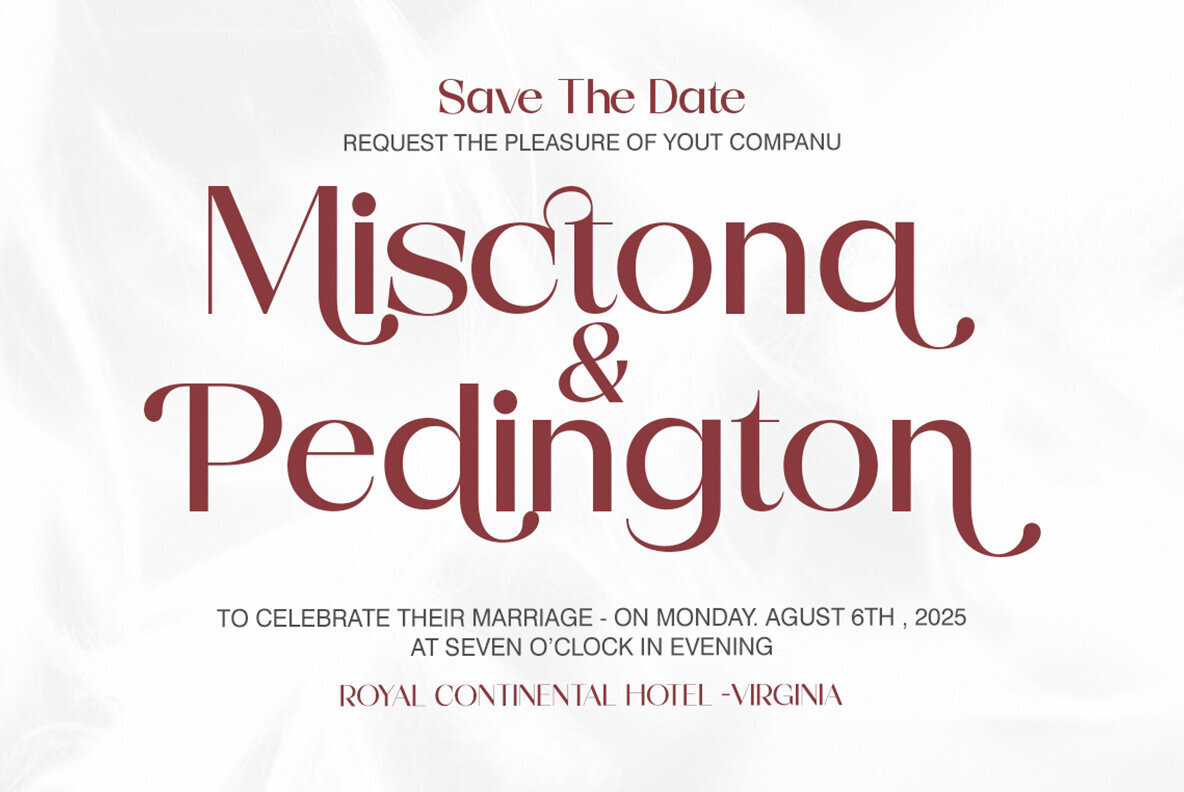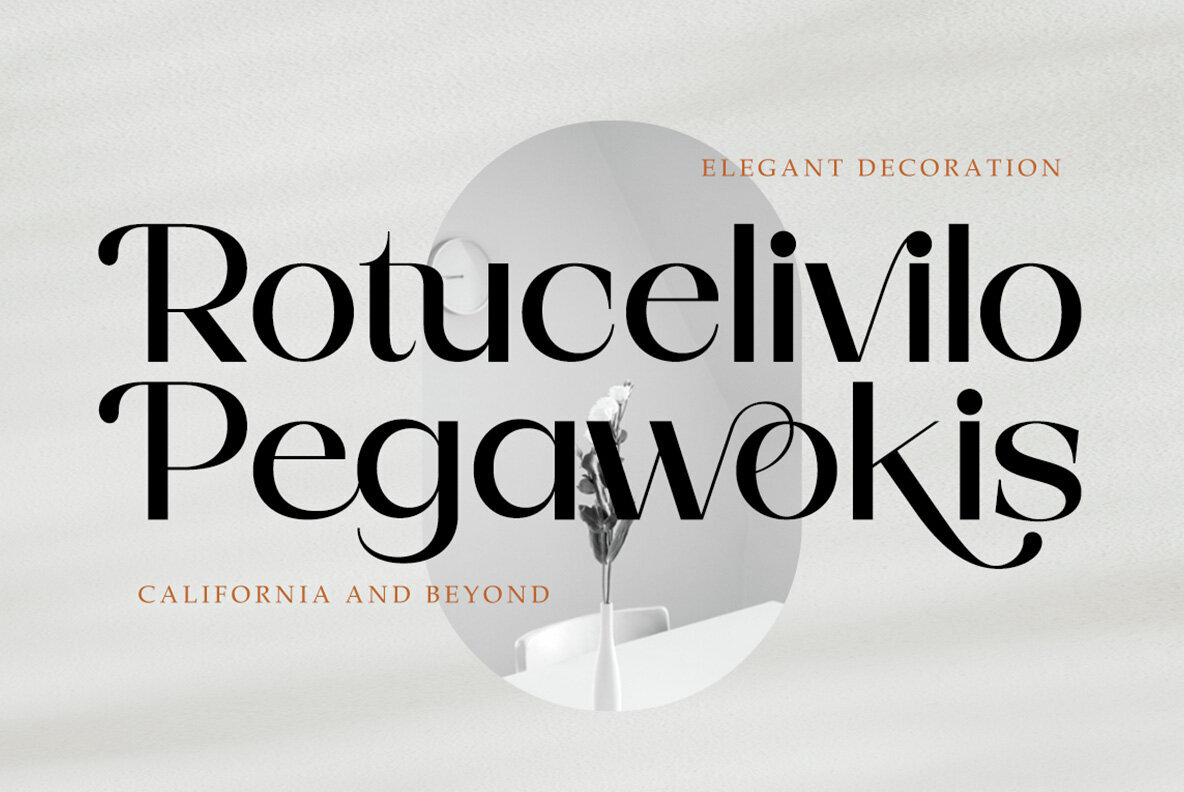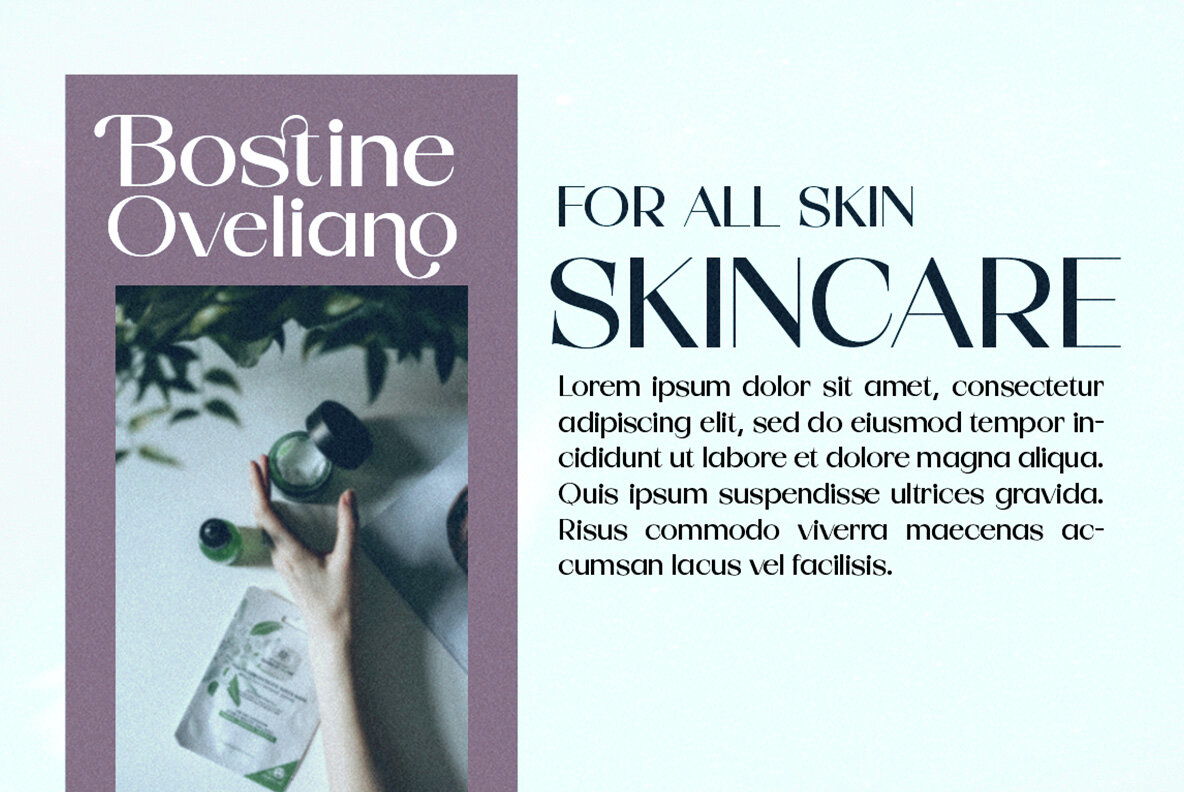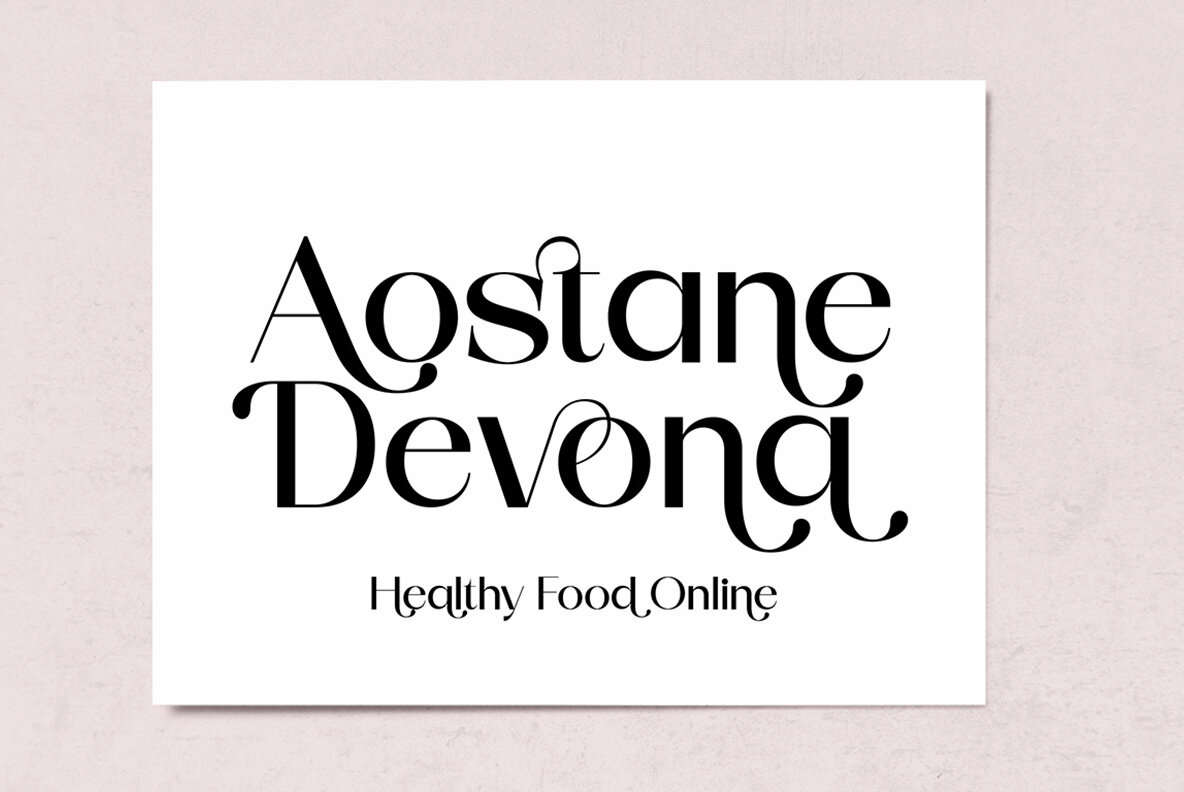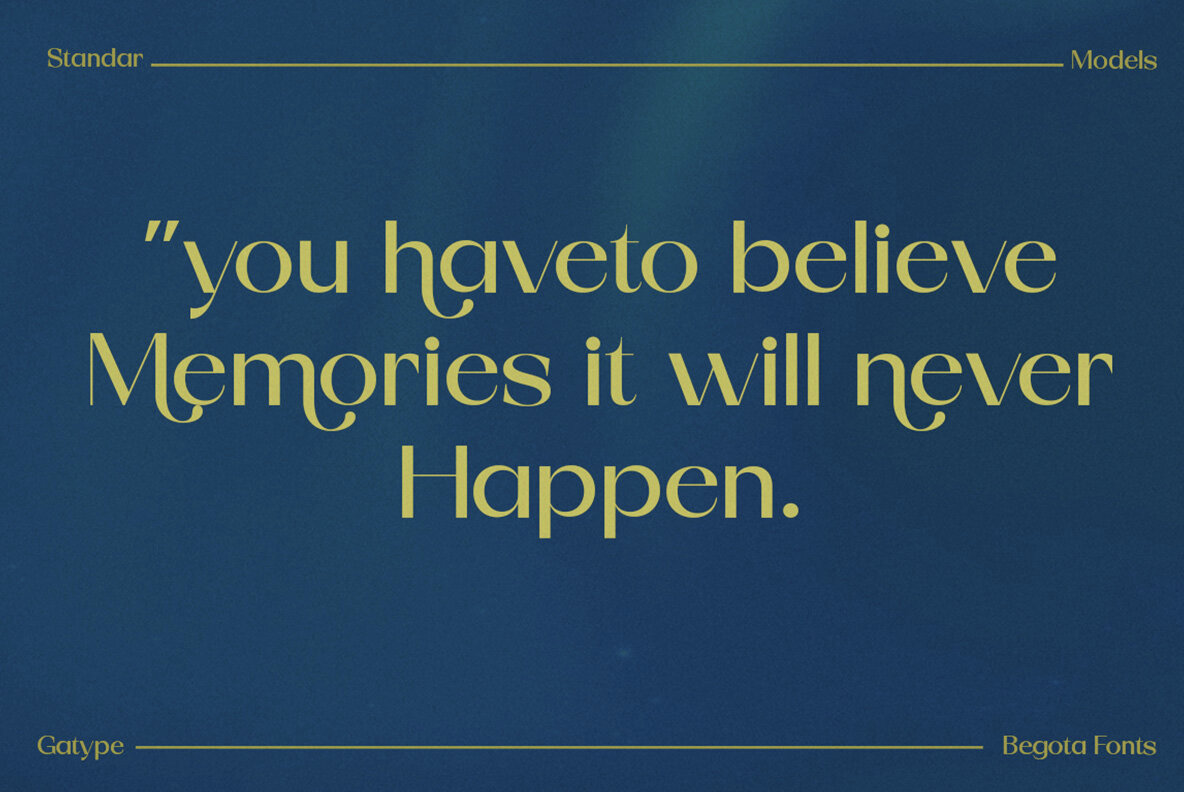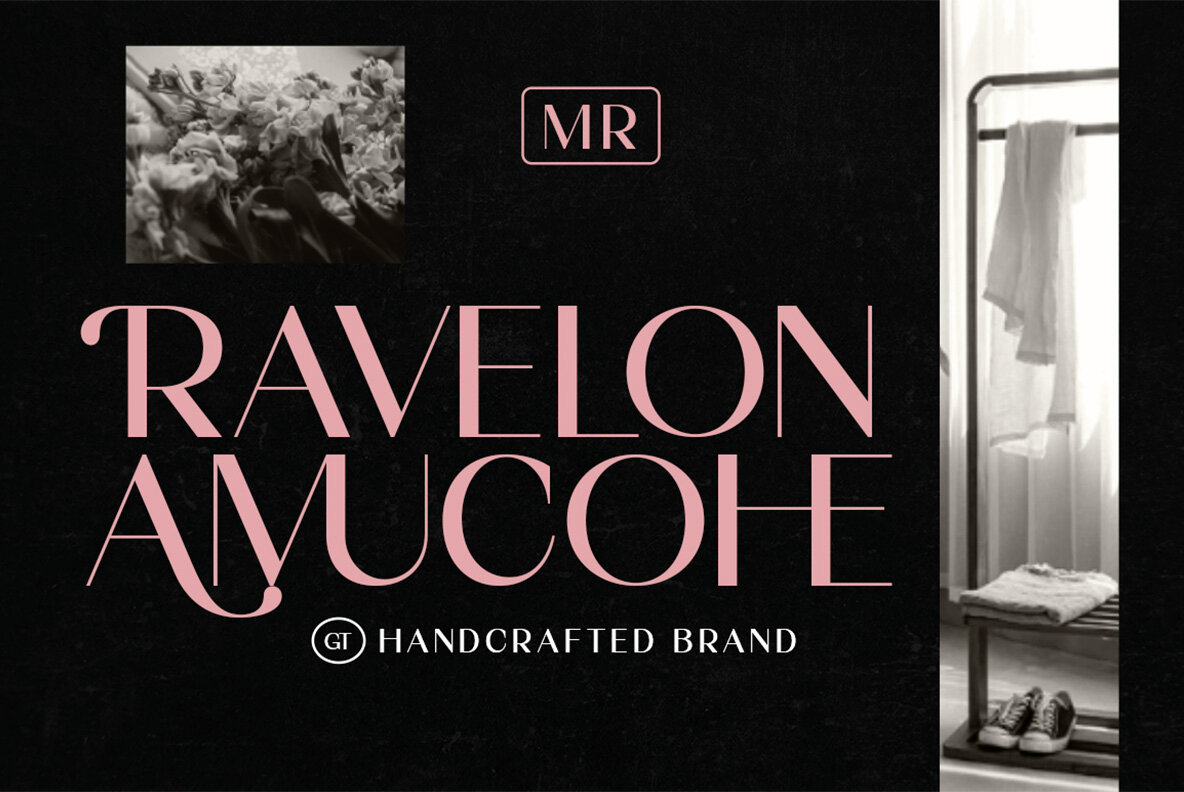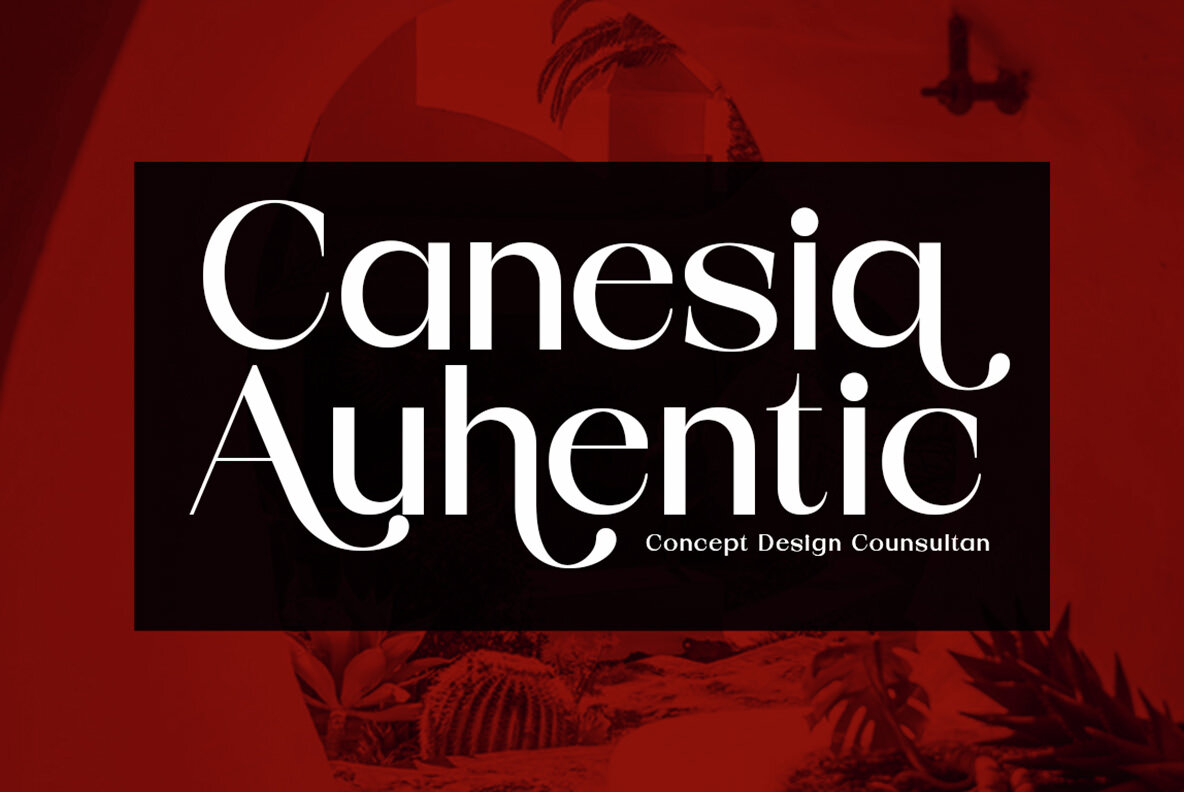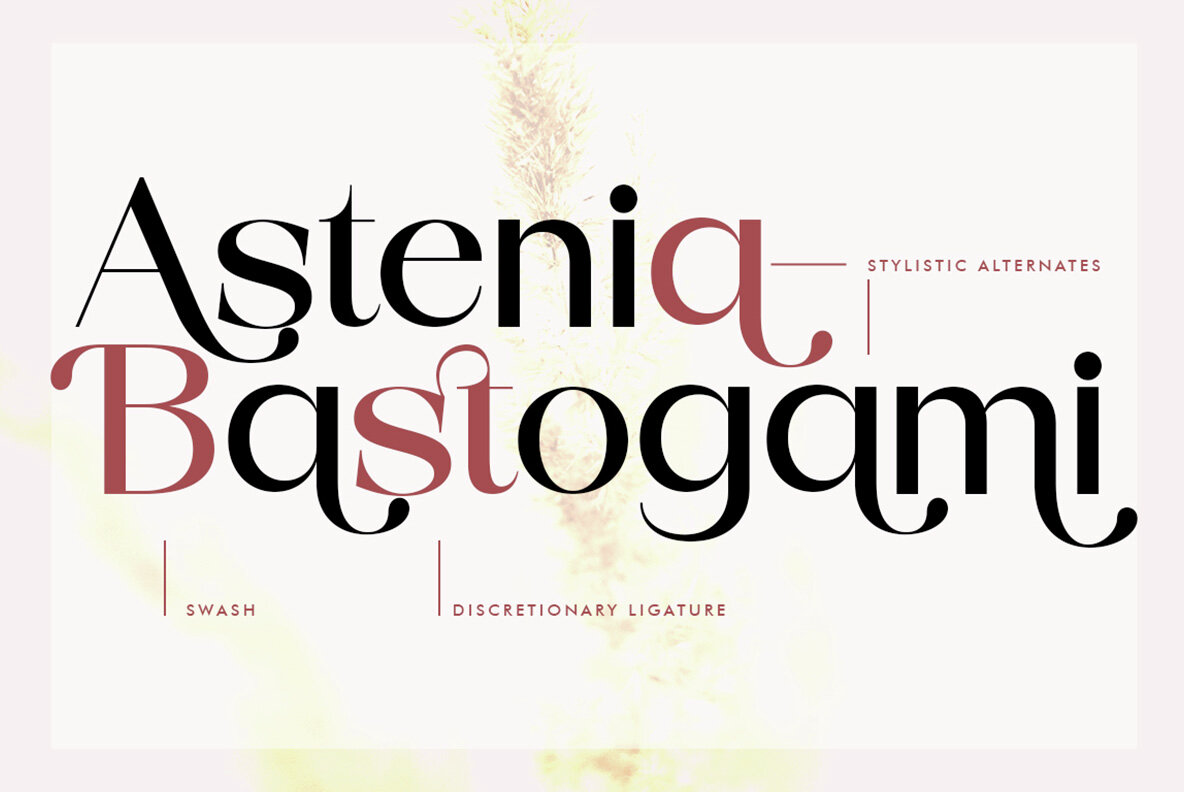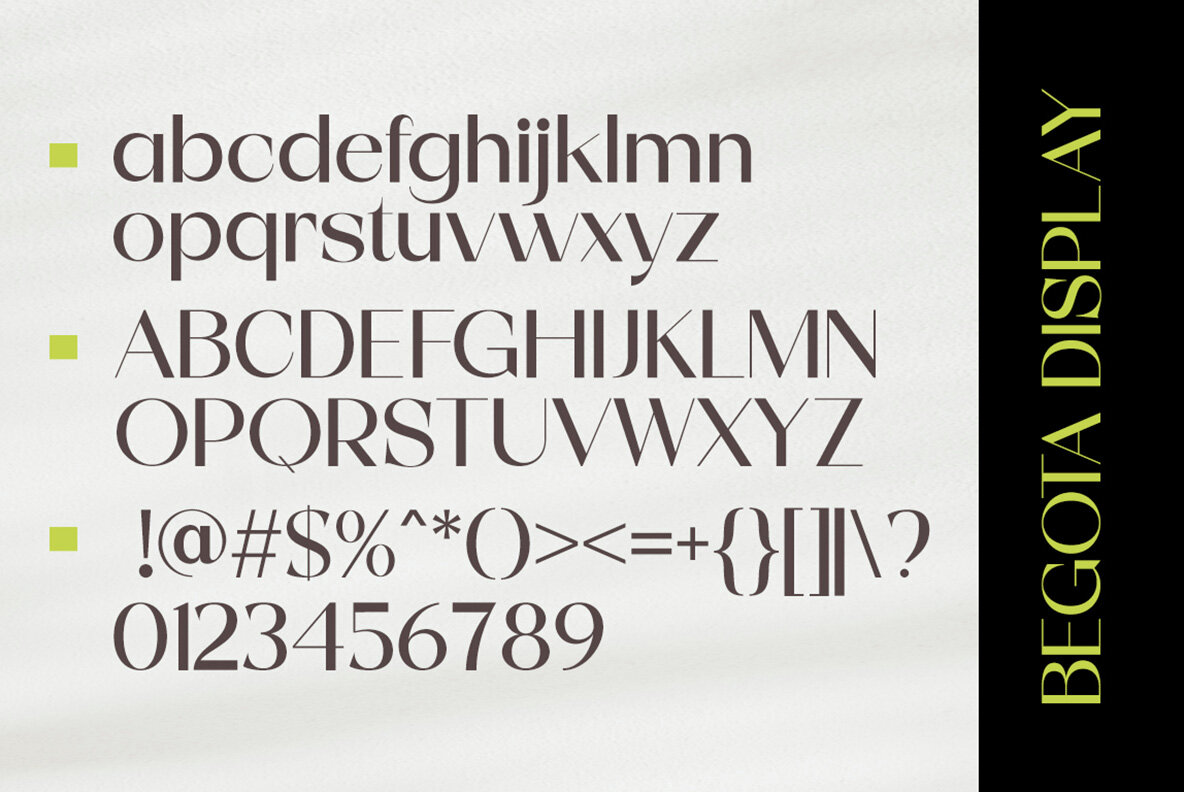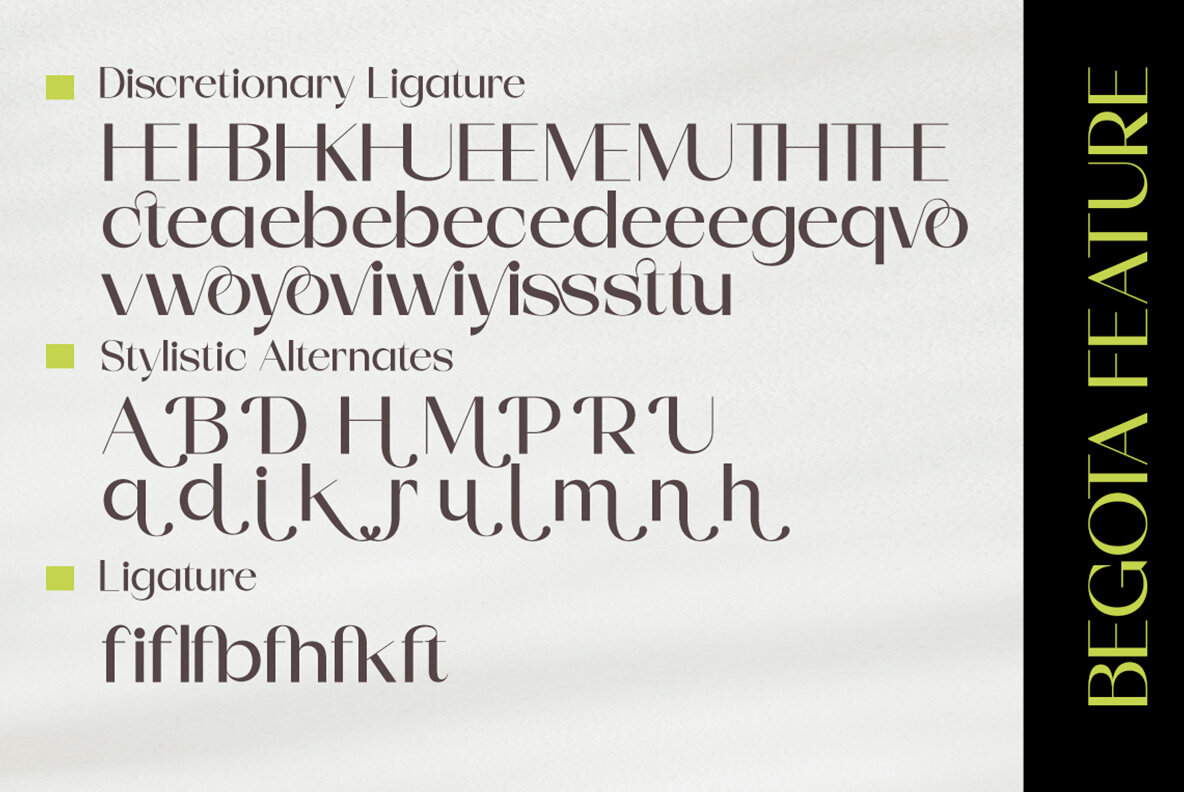
Begota Display Font
Begota Display Regular
Begota Display is an elegant serif font crafted during moments of creative inspiration. Inspired by the bold, natural look of serif fonts, Begota Display perfectly captures the essence of luxury and beauty. This font is ideal for today's fashion-focused designs, offering boldness, balance, and versatility. It includes uppercase letters, numbers, and a variety of punctuation marks. Begota Display is perfect for enhancing visuals in several contexts, including: Begota Display is equipped with OpenType features, providing initial and final language styles. It includes alternative characters for most lowercase letters, along with numbers, punctuation, and supports multiple languages.Begota Display: Bold Elegance in Serif Form